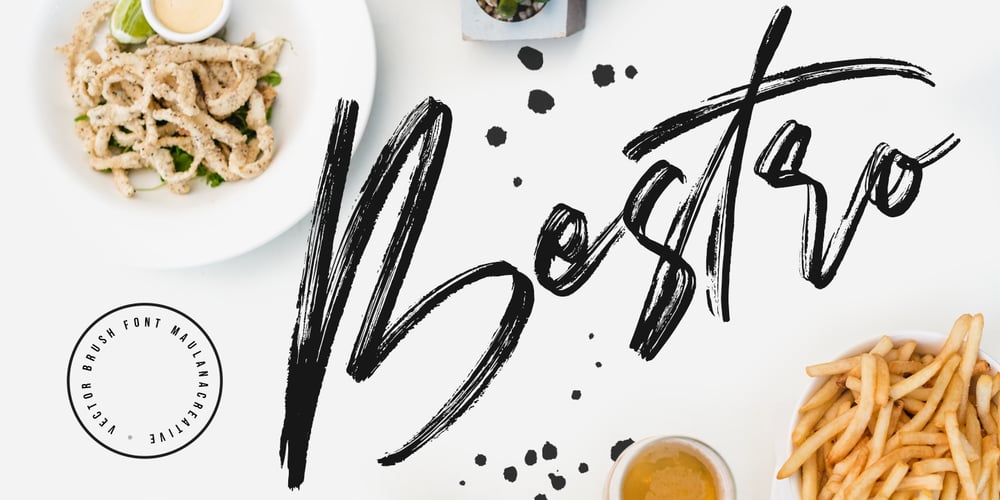
Bestro
Bestro font
Bestro Font Family was designed by Gilang Maulana and published by Maulana Creative. Bestro contains 1 styles and family package options. Give your designs an authentic handcrafted feel. “Bestro” is perfectly suited to signature, stationery, logo, typography quotes, magazine or book cover, website header, clothing, branding, packaging design and more.